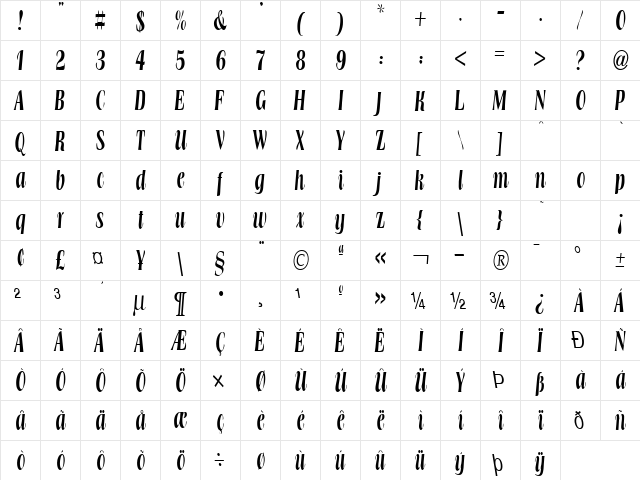
Broach Thin Normal
Design Context for Broach Thin Typeface
Broach Thin takes a measured approach to typography — its balanced proportions and neutral character make it a reliable workhorse for both digital and print work. Its slender proportions lend an understated elegance to any composition.